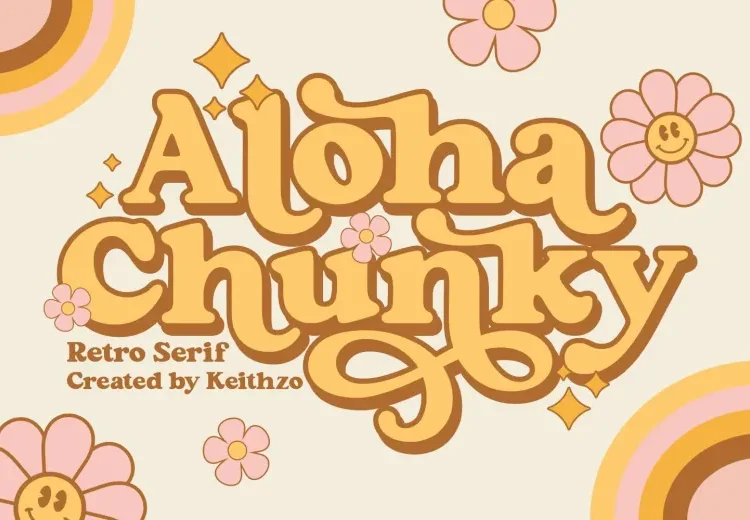
Aloha Chunky Font
Aloha Chunky is a funky retro serif typeface that brings the spirit of 1970s Americana to your designs. With its chunky letters and thick serifs, this typeface evokes the bold, vintage aesthetic of classic advertisements and album covers. The playful yet nostalgic vibe of Aloha Chunky makes it an excellent choice for projects that require a retro touch, infusing your designs with character and a sense of nostalgia.
Perfect for album artwork, posters, advertisements, and other retro-inspired designs, Aloha Chunky stands out with its bold and distinctive style. Whether you’re working on branding, print materials, or digital designs, this font adds personality and a unique flair to any project.
Ideal for creating attention-grabbing headlines and logos, Aloha Chunky is sure to make your designs stand out with its distinctive, old-fashioned charm. Its thick serifs and chunky letterforms bring both playfulness and elegance, making it a standout choice for any creative project.